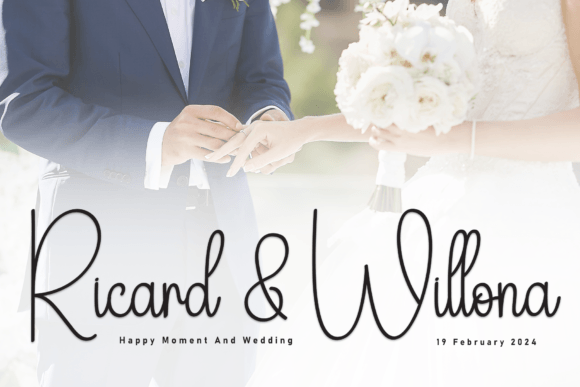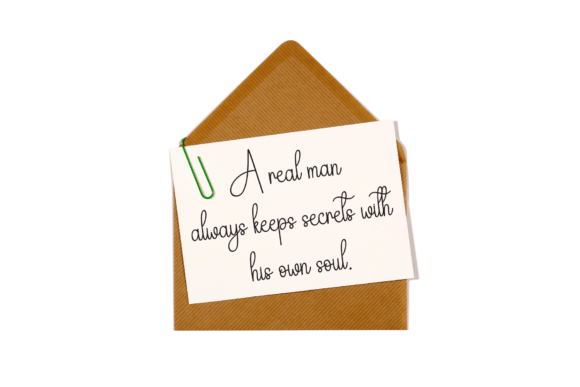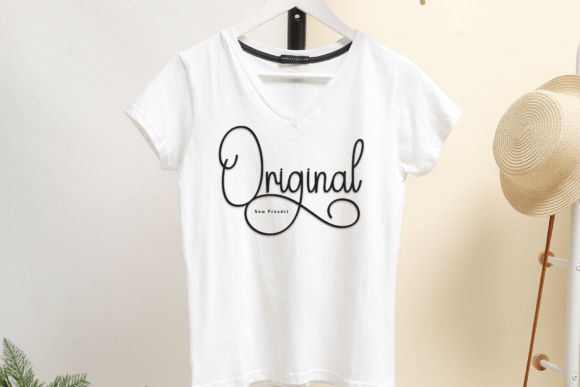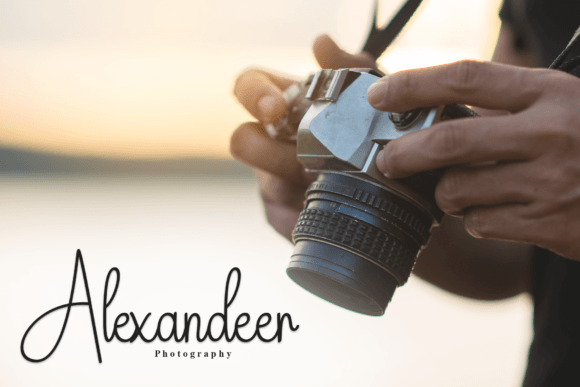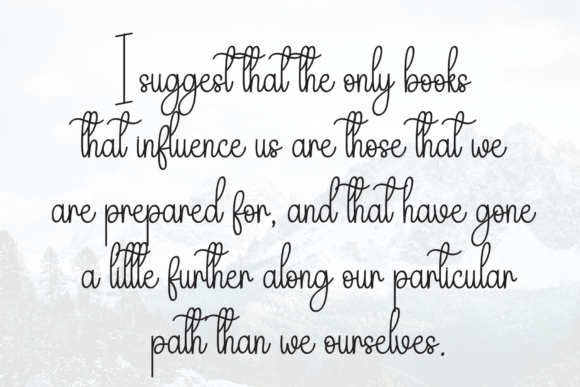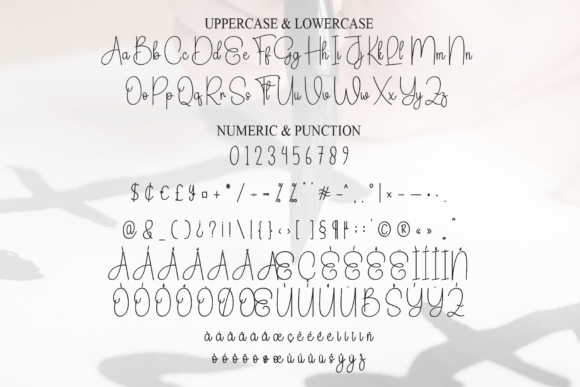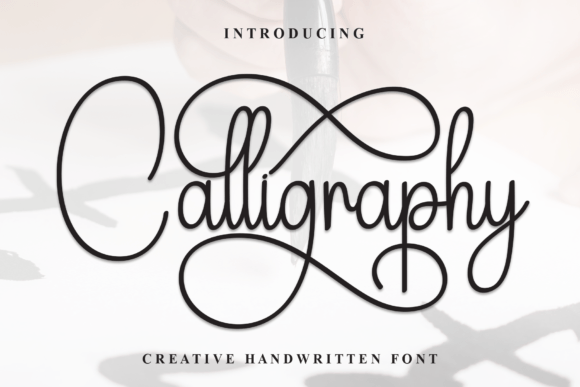
The Elegance of Calligraphy: A Timeless Font for Creative Projects
I’ll never forget the time I was working on a wedding invitation project, and my client asked for a font that would make the invitation look elegant and sophisticated. I scoured the internet, tried countless fonts, but nothing seemed to fit the bill. That was until I stumbled upon a beautiful calligraphy font that added a touch of refinement and glamour to the entire design. In this article, I’ll share with you the beauty of calligraphy fonts, their uses, and how to make the most of them in your creative projects.
What is Calligraphy Font?
Calligraphy is a flowing handwritten font that marries grace with expressiveness. Each meticulously crafted character exudes an artful elegance, capturing the essence of traditional calligraphy. Ideal for projects seeking a timeless and sophisticated touch, Calligraphy adds a refined, handwritten flourish to your creative endeavors.
- ✨ Elegant and sophisticated design
- 💫 Beautifully crafted characters with intricate details
- 🎨 Versatile and can be used for a variety of creative projects
⚠️ One thing to note is that calligraphy fonts can be quite ornate, which may not be suitable for projects that require a more minimalist approach. Additionally, some characters may not be suitable for use at very small font sizes.
The calligraphy font was inspired by the work of traditional calligraphers who spent years perfecting the art of beautiful handwriting. The font’s designer was fascinated by the elegance and sophistication of traditional calligraphy and sought to capture its essence in a digital font.
| Font Name | Calligraphy Font |
Q: What is the best way to use calligraphy fonts in my designs?
A: The best way to use calligraphy fonts is to use them sparingly and thoughtfully. Use them to add a touch of elegance and sophistication to your designs, but avoid overusing them.